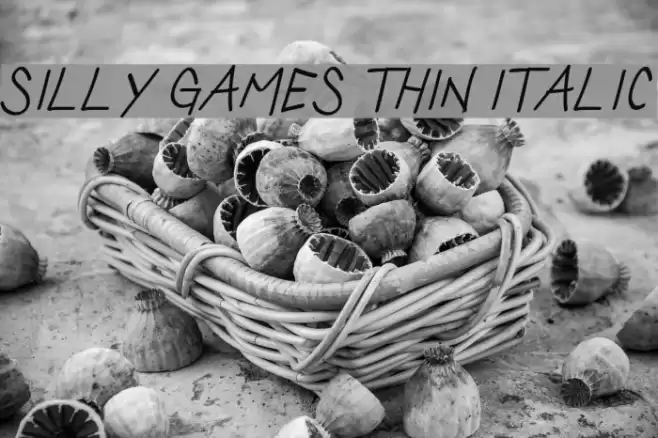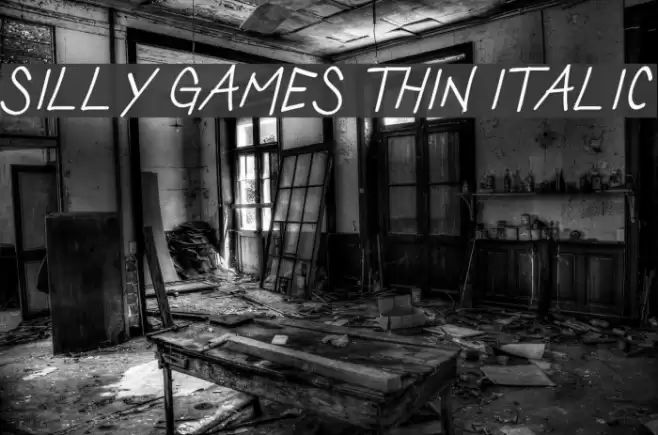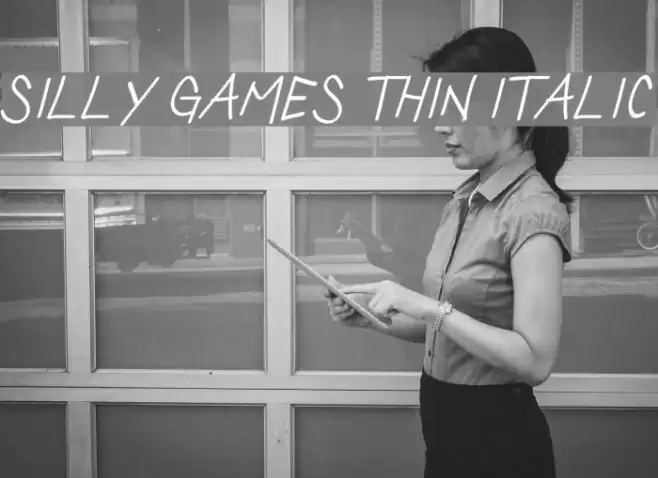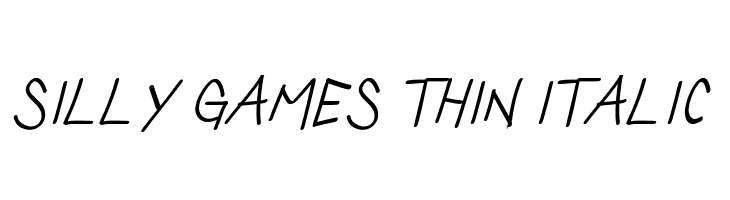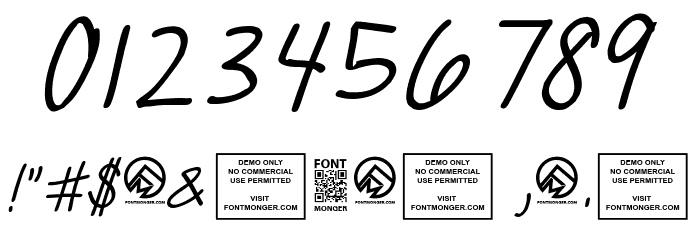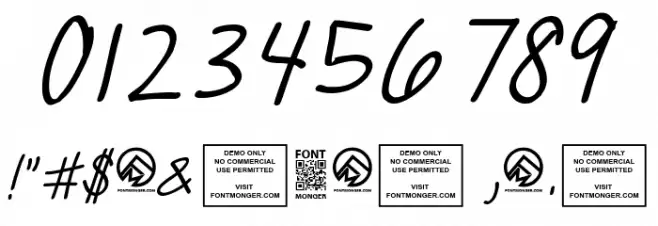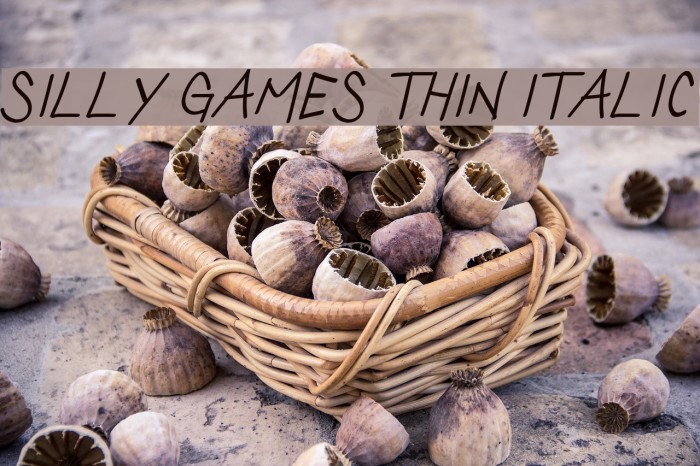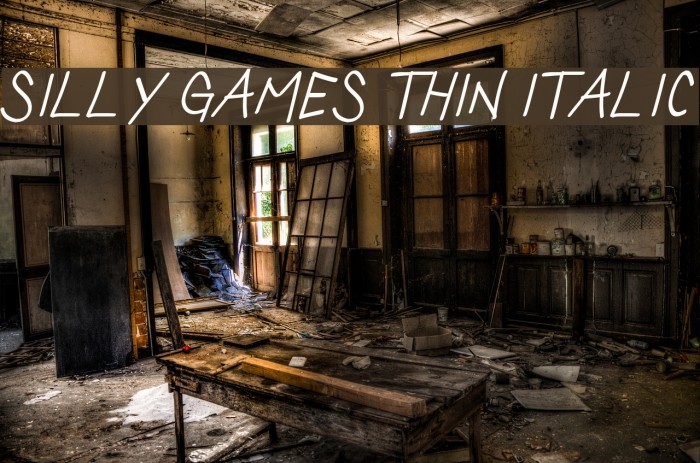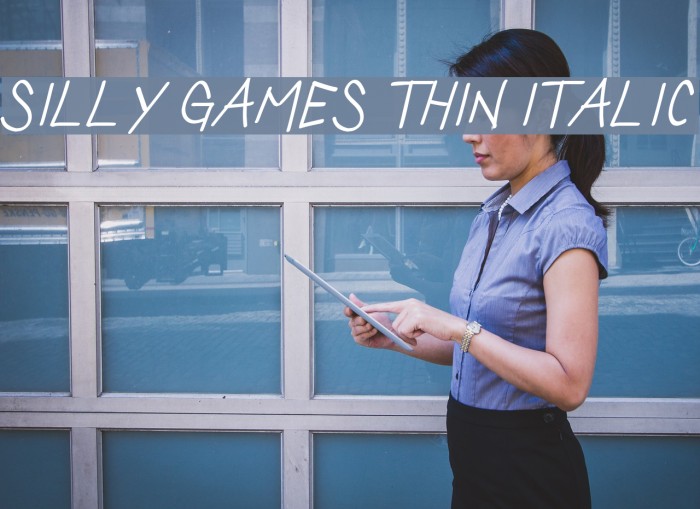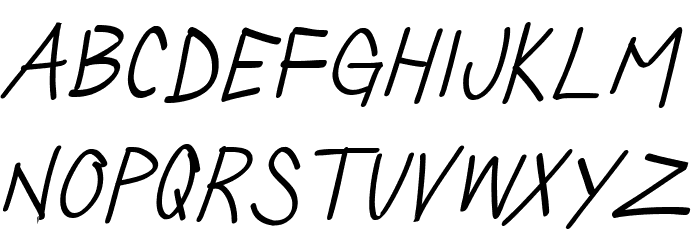
Silly Games Thin Italic Font
Silly Games Thin Italic Description
This font features a playful and casual handwritten style, characterized by its thin and slightly slanted letters. The strokes are consistent in their lightness, giving the font an airy and informal feel. The uppercase and lowercase letters maintain a cohesive look, with rounded edges and a slight tilt that adds to its whimsical nature. Numbers and special characters follow the same design principles, ensuring uniformity across all elements. This font exudes a sense of fun and spontaneity, making it ideal for projects that require a personal touch.
A playful, thin, and italic handwritten font with a casual and whimsical style from Uncategorized fonts.
- Proposed Projects: Ideal for greeting cards, invitations, personal blogs, and casual branding projects.
- Overall Style: Casual
- Use Case: Logos, Invitations, Personal projects